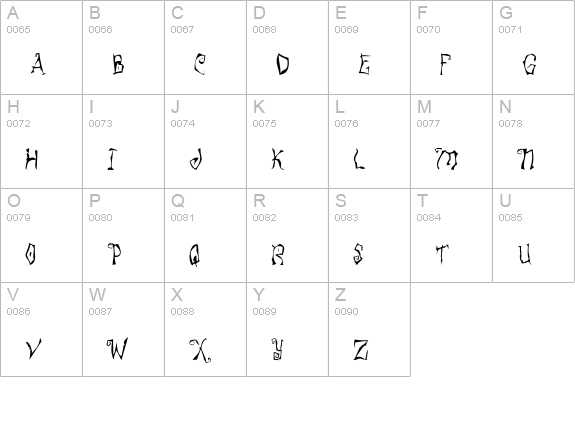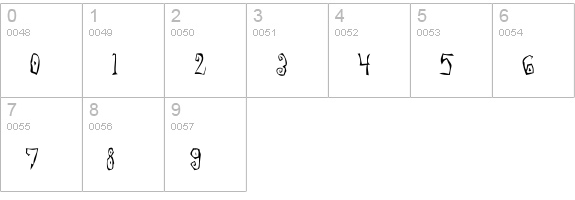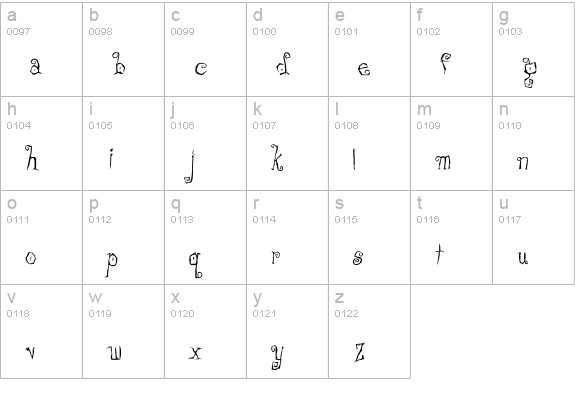
Freakshow-Scary Font Details
Freakshow-Scary font is a spine-chilling typeface that will send shivers down your spine. With its twisted and jagged edges, this font exudes an eerie and unsettling vibe, making it perfect for Halloween-themed projects, horror movie posters, or any design that requires a touch of the macabre. The sharp angles and ominous shapes of Freakshow-Scary font create a sense of unease and mystery, adding a thrilling element to your text. Best of all, Freakshow-Scary font is available for free download at FontsMarket.com. Now you can easily add a touch of terror to your designs without breaking the bank. Don't miss out on this chilling font that will leave your audience trembling in fear. Download Freakshow-Scary font today and unleash the darkness in your creations.